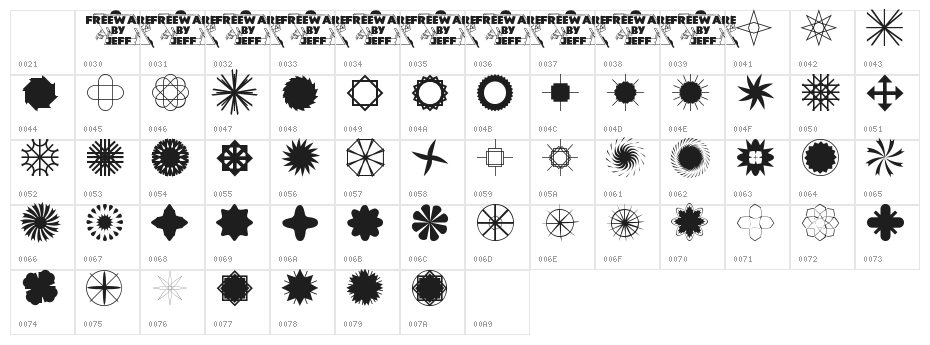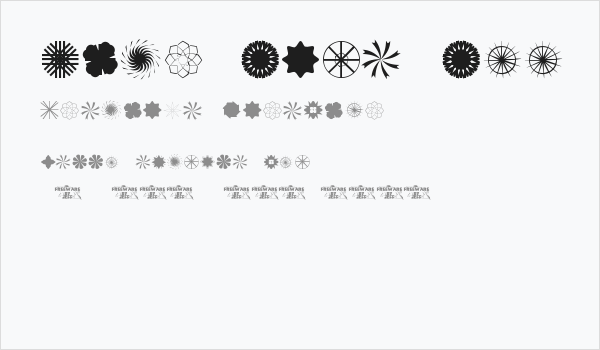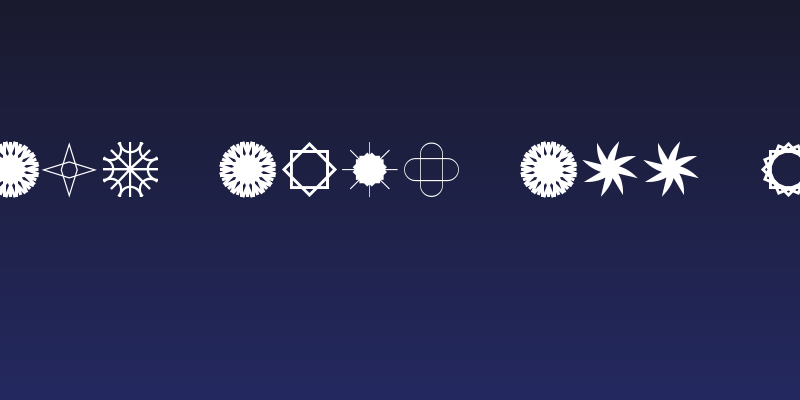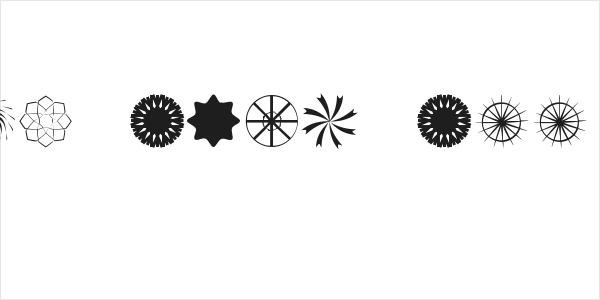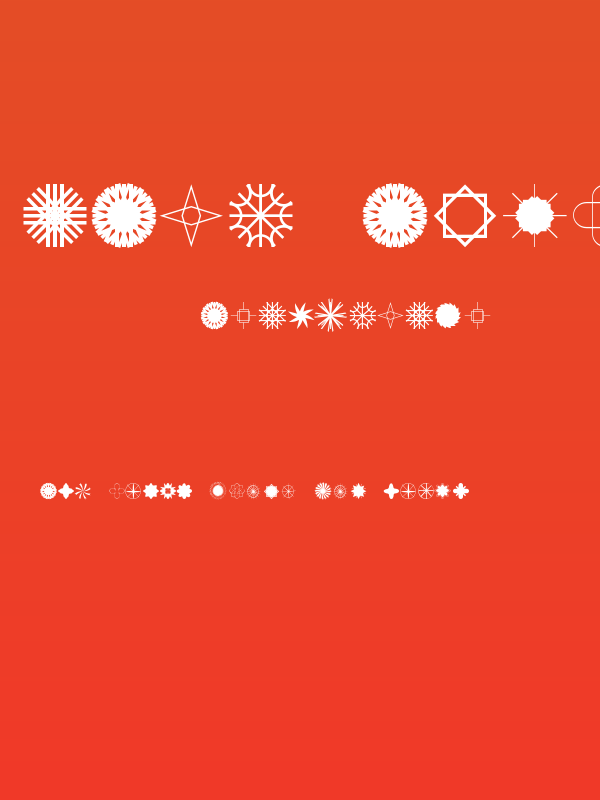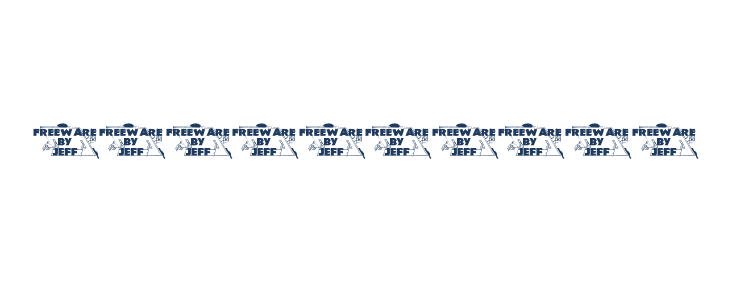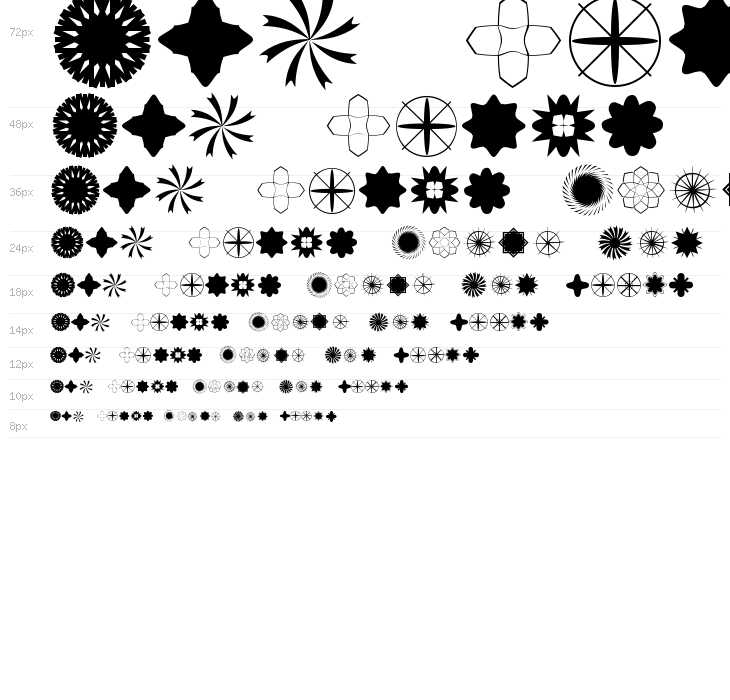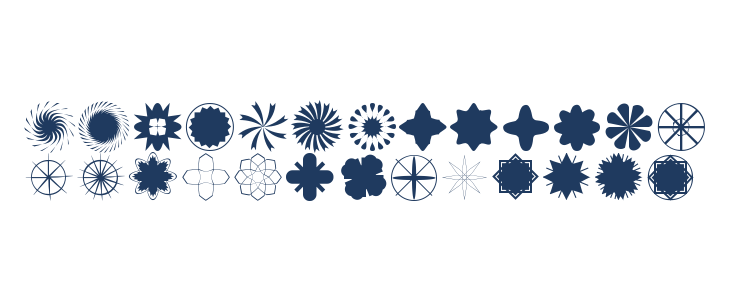
Star Time Too JL Font
Star Time Too JL Description
A decorative dingbat font featuring a wide variety of starburst, geometric, and abstract shapes, each glyph presenting a unique ornamental design. The characters are bold and highly stylized, with both filled and outlined forms, suitable for embellishments and graphic accents.
| Use Case | Graphic accents, borders, icons, embellishments |
| Proposed Projects | Posters, invitations, digital scrapbooking, branding accents, decorative borders, and graphic design elements. |